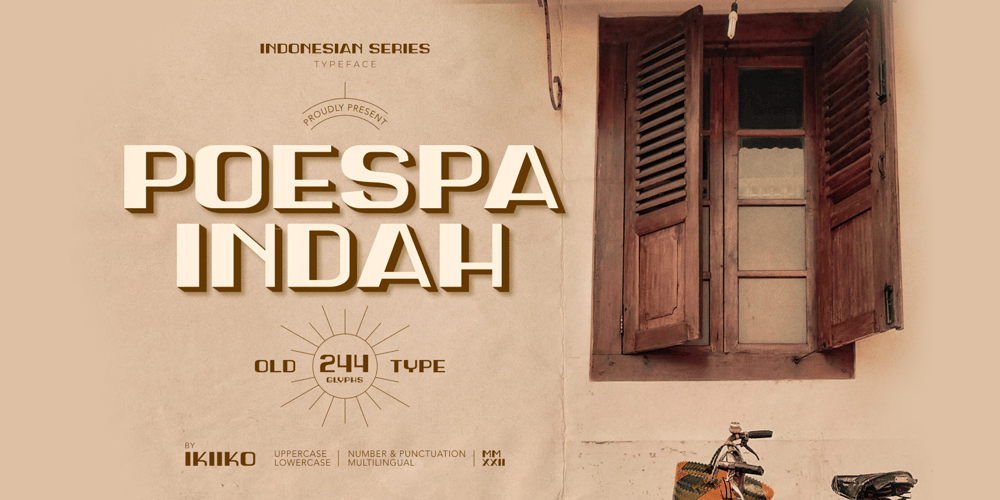
Poespa Indah Font Family was designed by Wahyu Eka Prasetya, Andhika Pradana and published by IKIIKOWRK. Poespa Indah contains 1 styles and family package options. Introducing Poespa Indah – Old Type, created by ikiiko.Poespa Indah was inspired by vintage store signs in the classic era of indonesia around the 60s. In particular, this typeface is designed to give a formal yet old style look. Poespa Indah has a sans serif typeface with bold to light contrast. This typeface is perfect for an formal layout, newspaper, magazine cover, and also good for vintage product, quotes, or simply as a stylish text overlay to any background image.What’s included? Uppercase & Lowercase Number & Punctuation Multilingual Support Works on PC & Mac Enjoy our font and if you have any questions, you can contact us by email : ikiikowrk@gmail.com